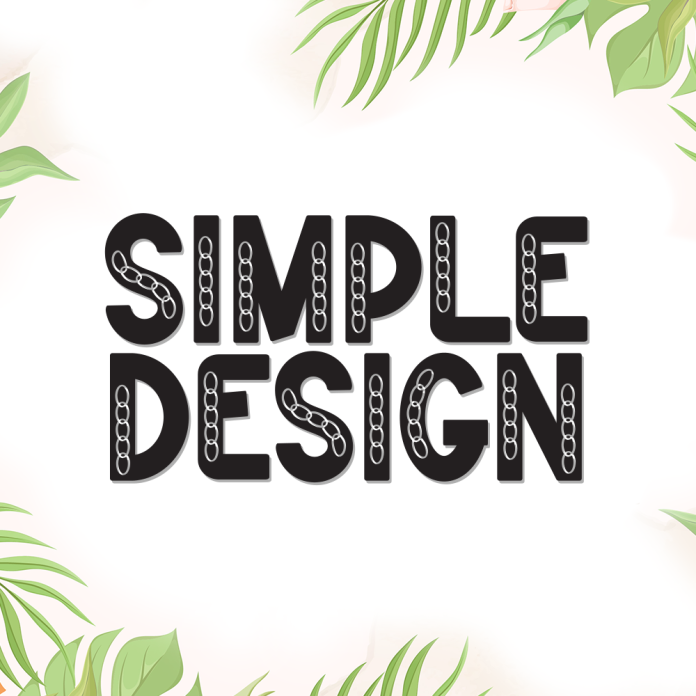
Simple Design is a sleek and minimal display font crafted to bring clarity and style to any project. With its bold yet uncomplicated letterforms, this font is perfect for creating a professional, modern aesthetic while remaining approachable and versatile.
Ideal for branding, headlines, social media graphics, product packaging, and editorial layouts, Simple Design helps your message stand out with effortless simplicity.
Clean and bold display style
Modern letterforms with a minimalist feel
Great for logos, posters, web design, and branding materials
Keep it clear and captivating with Simple Design, the display font that proves less is more.